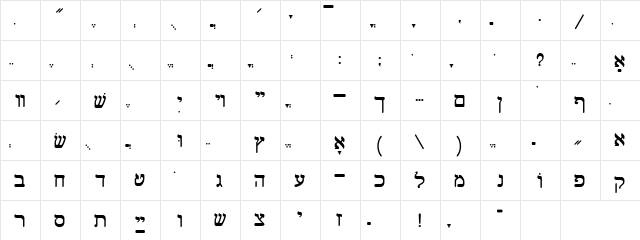
Shalom Old Style
| Style | Old Style |
Design Context for Shalom Typeface
Shalom offers clean, dependable letterforms without strong stylistic allegiance, making it a practical choice for designers who need flexibility.